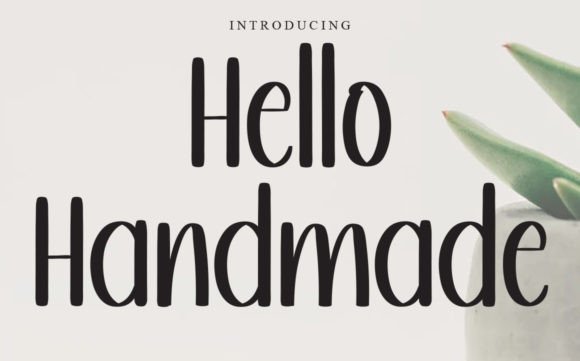
Unleash the magic of Hello Handmade, the exquisite handwritten font that captures the essence of delicate artistry. Let your designs bloom with elegance and charm as you embrace this captivating creation from A2-lucky. Hello Handmade is more than just a font; it's a gateway to a world of creative possibilities, inviting you to weave tales of beauty and imagination. Dive into the depths of its enchanting glyphs, meticulously crafted to evoke a sense of timeless allure and effortless grace.
With Hello Handmade, your designs will radiate a touch of sophistication and heartfelt warmth. Its fluid strokes dance across the page like a gentle caress, enhancing your projects with an air of understated beauty. Imagine your logo adorned with the flowing curves of Hello Handmade, leaving an unforgettable impression on your audience. Craft stunning wedding invitations that exude elegance and romance, or create captivating social media posts that burst with personality.
But Hello Handmade's allure extends far beyond the digital realm. Its versatility knows no bounds, transforming ordinary objects into works of art. Personalize mugs, t-shirts, and home décor with Hello Handmade's charming touch, adding a personal flair that speaks volumes. Let your creativity flourish as you explore new horizons, knowing that Hello Handmade is your constant companion, guiding you along the path of artistic expression.
Indulge in Hello Handmade's embrace and witness the transformation of your designs. Its beauty will captivate hearts, its charm will leave an indelible mark, and its versatility will empower you to weave a tapestry of creativity that is uniquely yours. Embrace the artistry, embrace Hello Handmade.